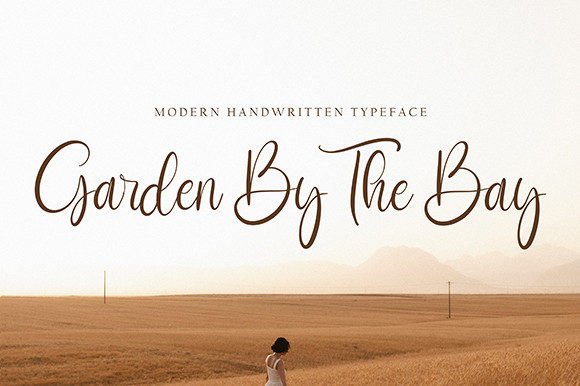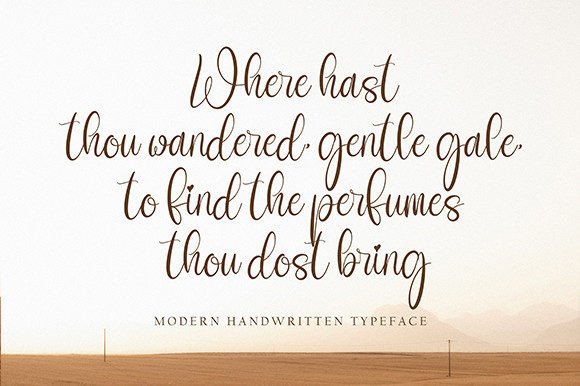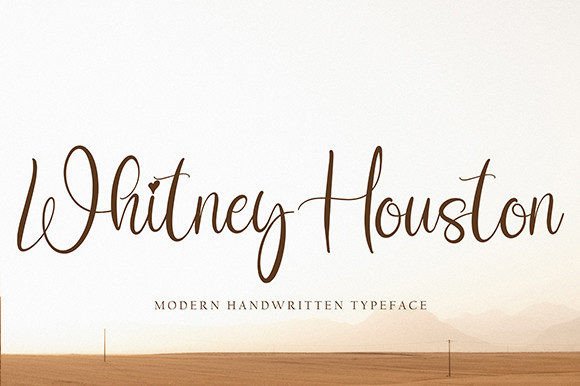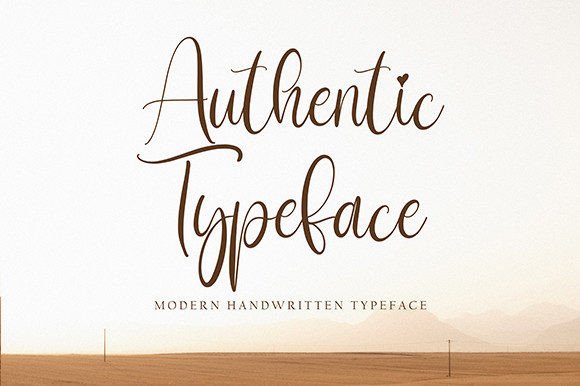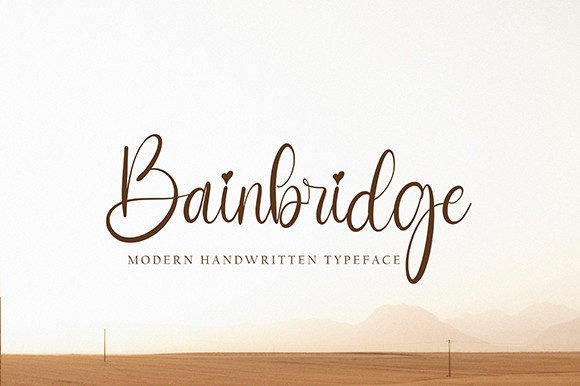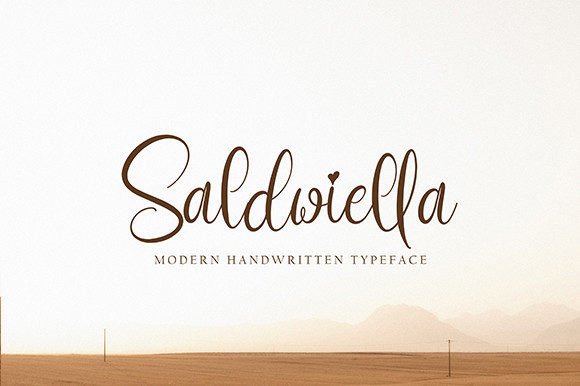
Introduction to Beibyshark Font
Remember that moment when you stumbled upon the perfect font, and your creative project instantly came to life? For designers, it’s like finding a treasure trove of inspiration. And, for many, that treasure is the Beibyshark Font. This adorable script font is a game-changer, offering a wide range of applications that can elevate any project from greeting cards to headlines.
| 📌 Product Name | Beibyshark Font |
| 👤 Author | Pineungtype & Missinklab |
With its transparent background and high-quality design, Beibyshark Font is a valuable resource for designers looking to add a touch of whimsy and romance to their work. Whether you’re working on a creative project or simply need a font that exudes charm, Beibyshark Font is sure to deliver. And the best part? It’s available for free download, making it an essential design resource for anyone looking to take their projects to the next level.
Key Features of Beibyshark Font
- High-quality design resource ideal for creative projects requiring a unique and eye-catching font.
- Beibyshark Font features a transparent background, making it perfect for overlaying on images or other design elements.
- Resolution-independent design ensures that the font looks crisp and clear at any size, from small text to large headings.
- Unique characteristics include its bold, playful style and intricate details, making it an excellent choice for designers looking to add some personality to their work.
- Perfect for use in digital design projects, including websites, social media graphics, and mobile apps, thanks to its high-quality and versatile design.
Honest Review: Beibyshark Font
As a designer, I’ve had my fair share of working with various fonts, and I must say that Beibyshark Font is a unique addition to any design resource. Its quirky and playful style makes it perfect for creative projects that require a touch of whimsy.
- High quality and detailed design, making it perfect for printing and digital use.
- Transparent background, making it easy to work with in various design applications.
- May not be suitable for formal or professional projects due to its playful nature.
- Limited font styles and variations, which may limit its versatility.
Overall, I’m impressed with the Beibyshark Font and would recommend it to designers looking for a unique and creative font to add to their design arsenal. While it may have some limitations, its high quality and free download make it a valuable resource for any design project.
Tips for Getting the Most Out of Beibyshark Font
To get the most out of the Beibyshark Font, use it in creative projects that require a high-quality, unique font. Experiment with different font sizes, colors, and styles to create visually appealing designs.
The Beibyshark Font is ideal for creative projects, including logos, branding, and marketing materials. It’s also suitable for use in social media graphics, presentations, and documents.